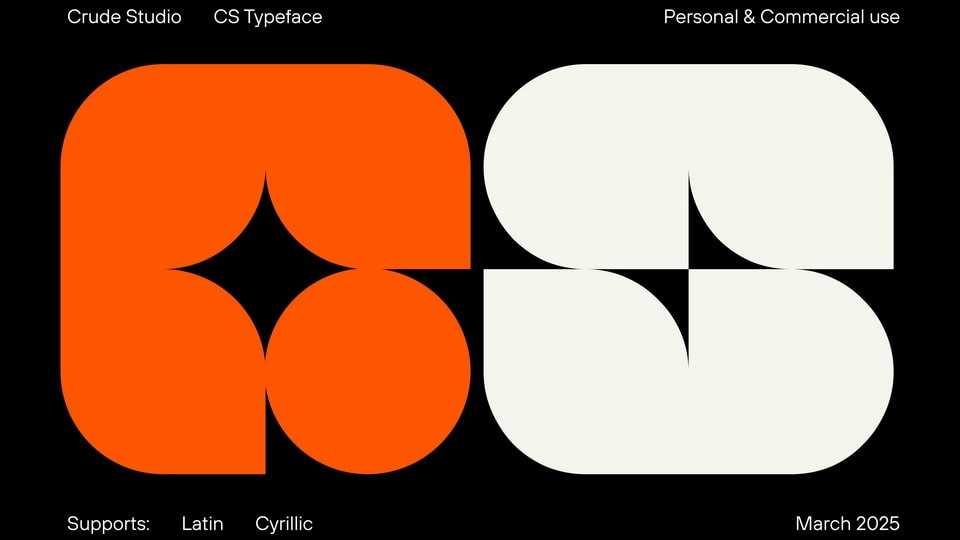
Download Crude font, a both rough and precise, minimal yet layered typeface built from four or six of the simplest geometric shapes — squares with varying corner radii.
Designer: Crude Studio